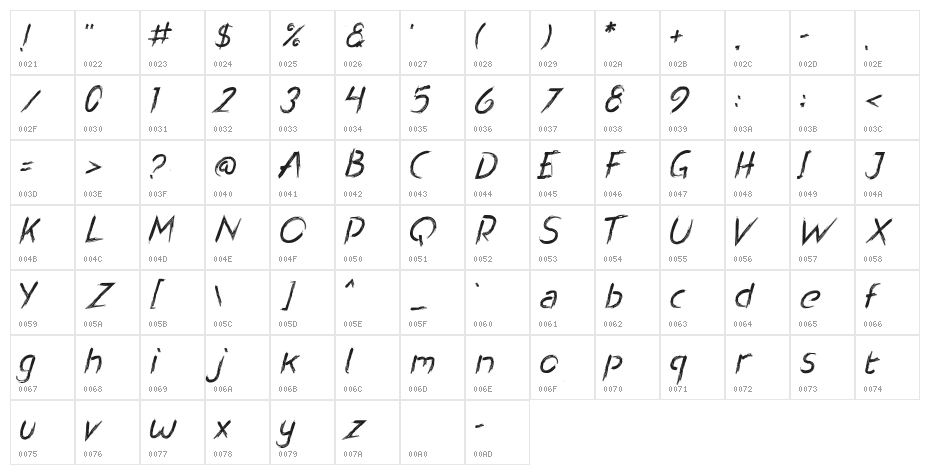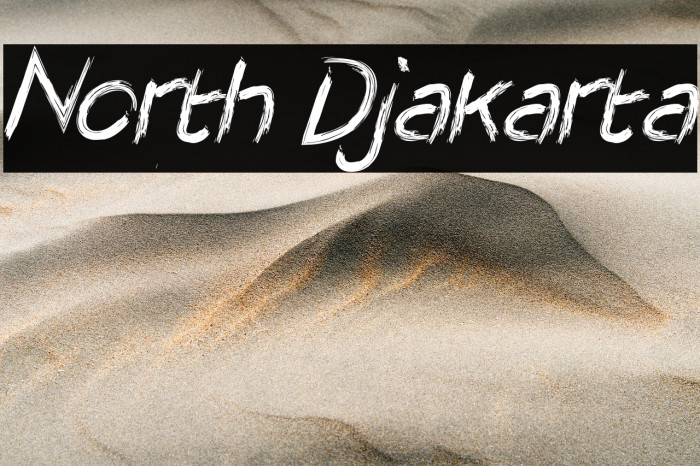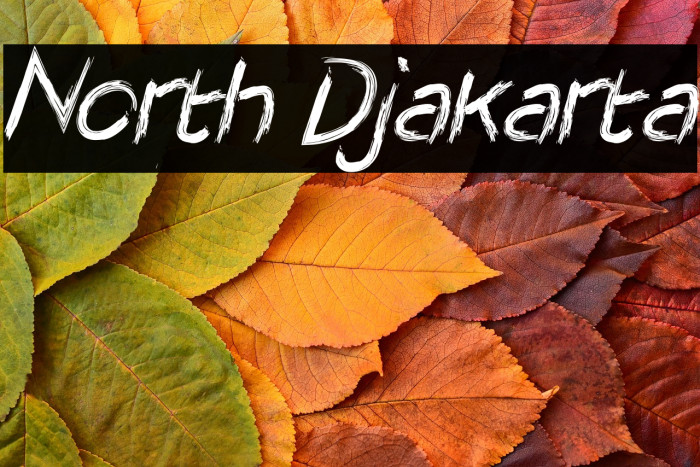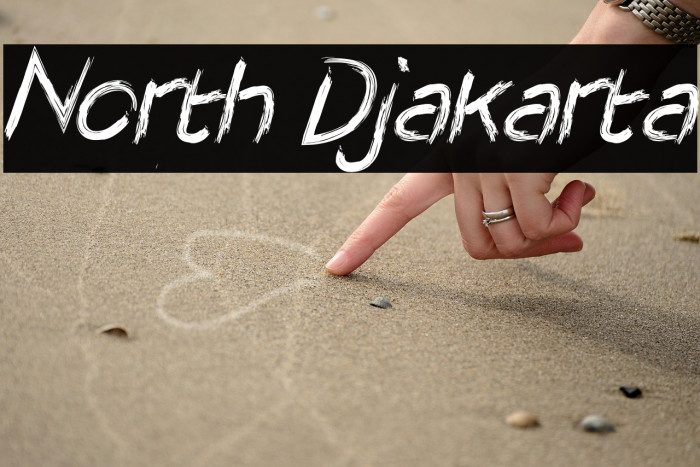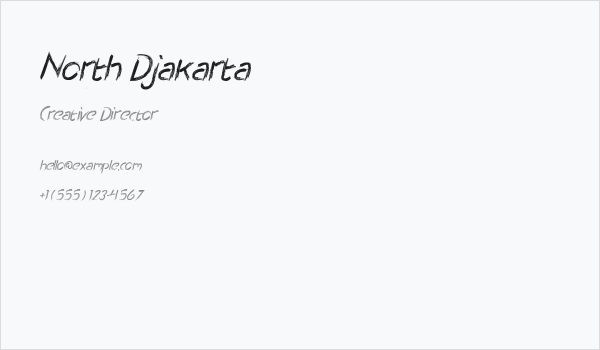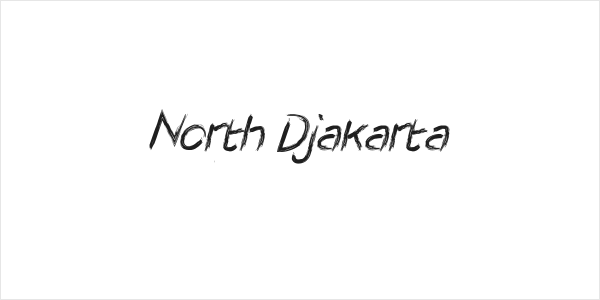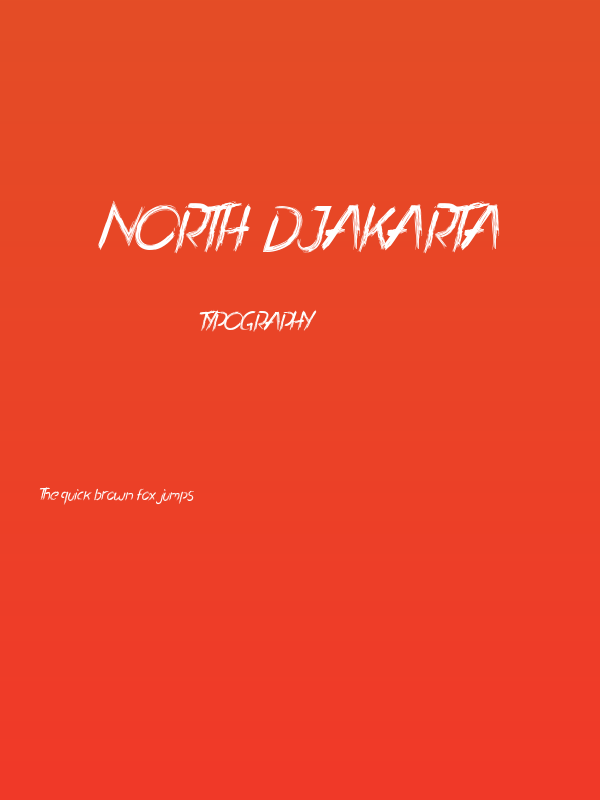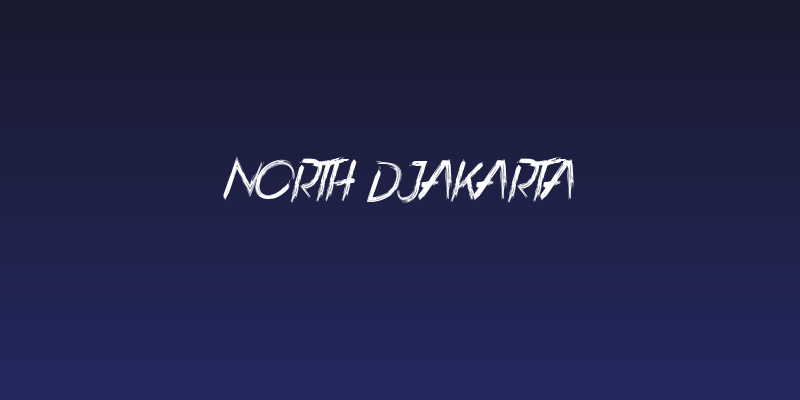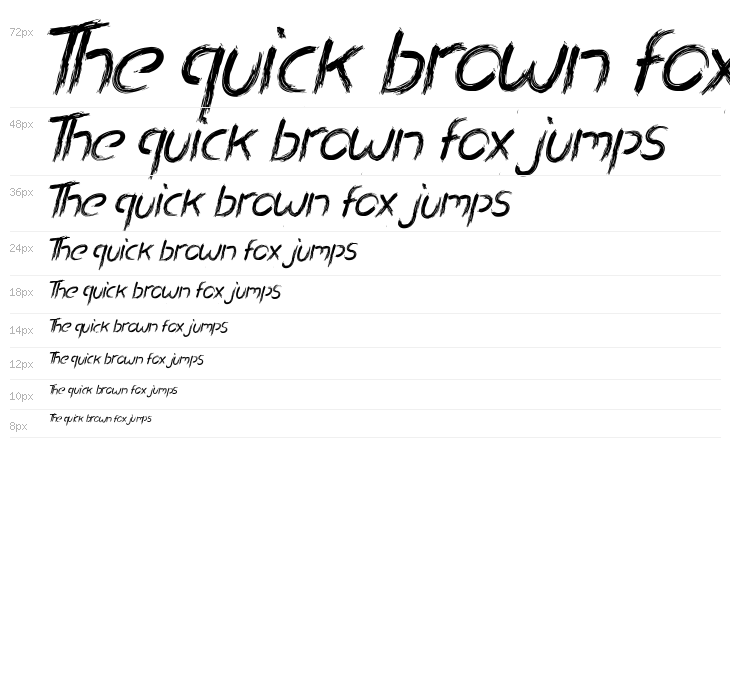
North Djakarta Font
North Djakarta Description
This font features a bold and dynamic brushstroke style, characterized by its energetic and expressive appearance. The letters are crafted with a sense of movement and fluidity, giving them a hand-painted look. The strokes vary in thickness, adding a sense of depth and texture. This font is visually striking, making it ideal for projects that require a strong and artistic statement. The uppercase and lowercase letters maintain a consistent style, while the numbers and special characters complement the overall design. Its unique and artistic flair makes it stand out in any creative project.